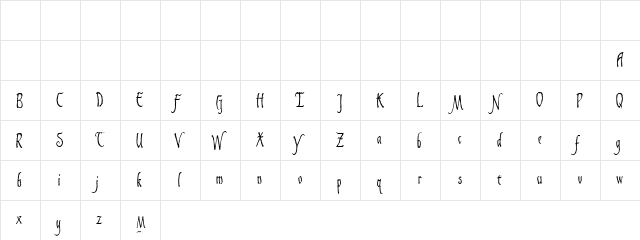
Gaiseric Demo Regular Font Preview
Gaiseric Demo Regular
Design Context for Gaiseric Demo Typeface
Gaiseric Demo is a composed and adaptable typeface that performs quietly and consistently across a wide range of design contexts.